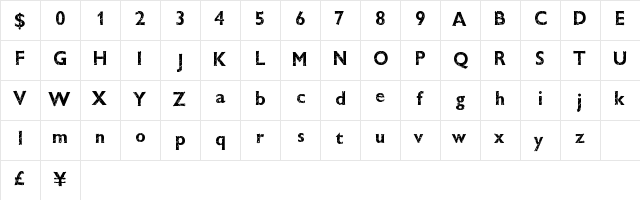
WindowCrash Regular
Design Context for WindowCrash Typeface
WindowCrash takes a measured approach to typography — its balanced proportions and neutral character make it a reliable workhorse for both digital and print work.